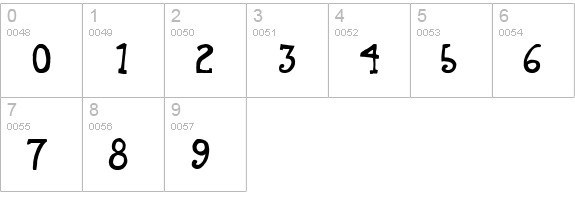
TEGEY Font Details
TEGEY font is a stylish and modern typeface that exudes elegance and sophistication. With its sleek lines and unique letterforms, this font is perfect for adding a touch of class to any design project. The TEGEY font is versatile and can be used for a wide range of applications, including branding, packaging, logos, headlines, and more. Its clean and legible characters make it easy to read at any size, ensuring that your message is conveyed effectively. What sets TEGEY font apart is not only its impeccable design but also the fact that it is free! Yes, you read that right. This incredible font is freely available to download at FontsMarket.com. Now you can elevate your designs without having to worry about breaking the bank. Whether you are a professional designer or a DIY enthusiast, TEGEY font is a must-have in your font collection. Its versatility and elegance make it a go-to choice for any project, whether it's a luxurious wedding invitation or a sleek corporate brochure. Don't miss out on this amazing opportunity to enhance your designs with TEGEY font. Head over to FontsMarket.com and download it for free today. With TEGEY font, you'll be able to create stunning and engaging designs that leave a lasting impression on your audience.